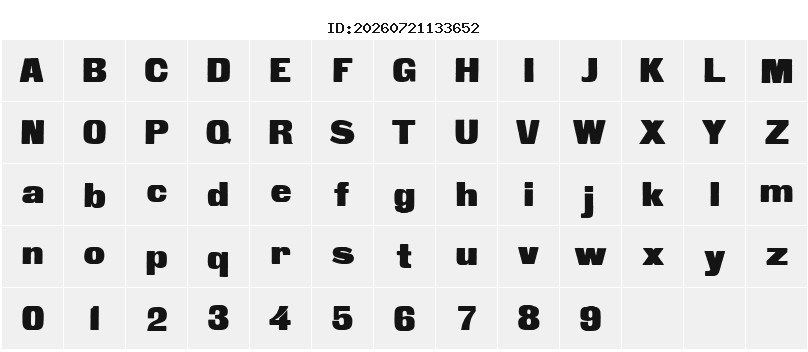
• Font Name: Fette Steinschrift
• Full Font Name: Fette Steinschrift
• Designer: Dieter Steffmann
Fette Steinschrift.ttf is a modern, elegant sans-serif font designed for ultimate readability and visual harmony. Perfect for branding, headlines, web design, and print materials.